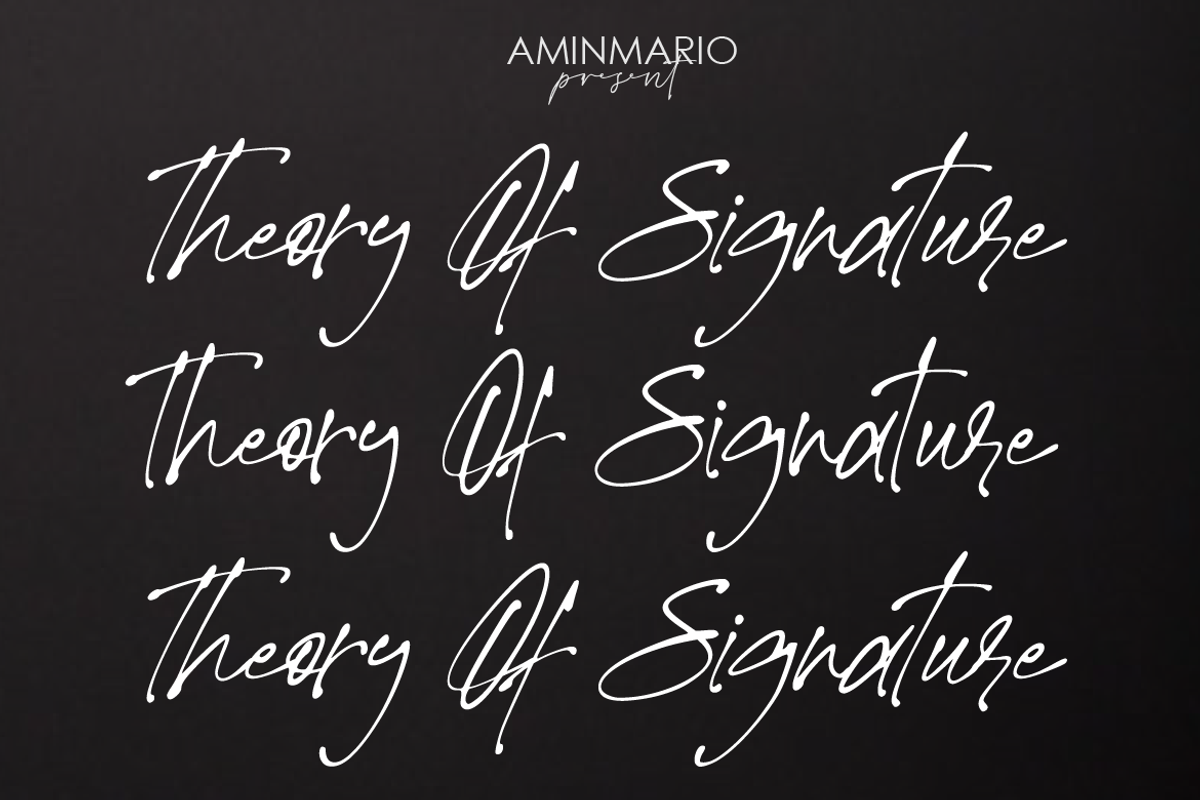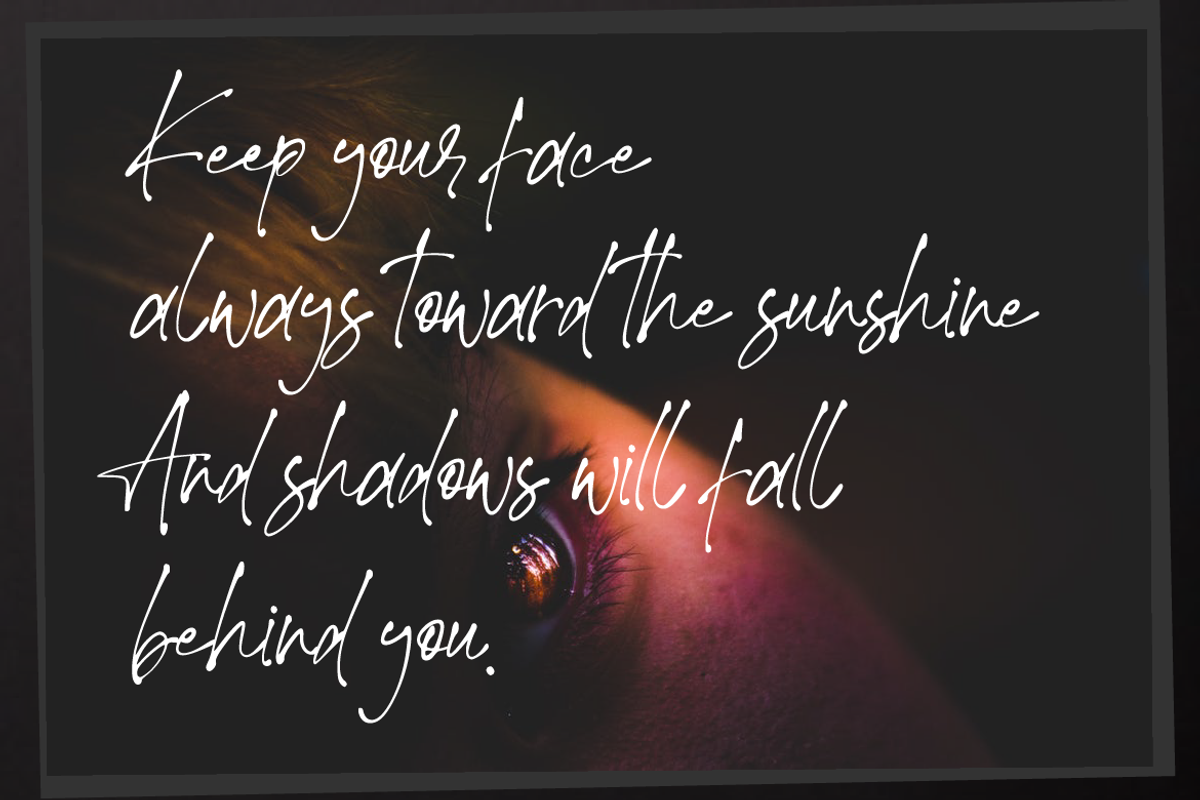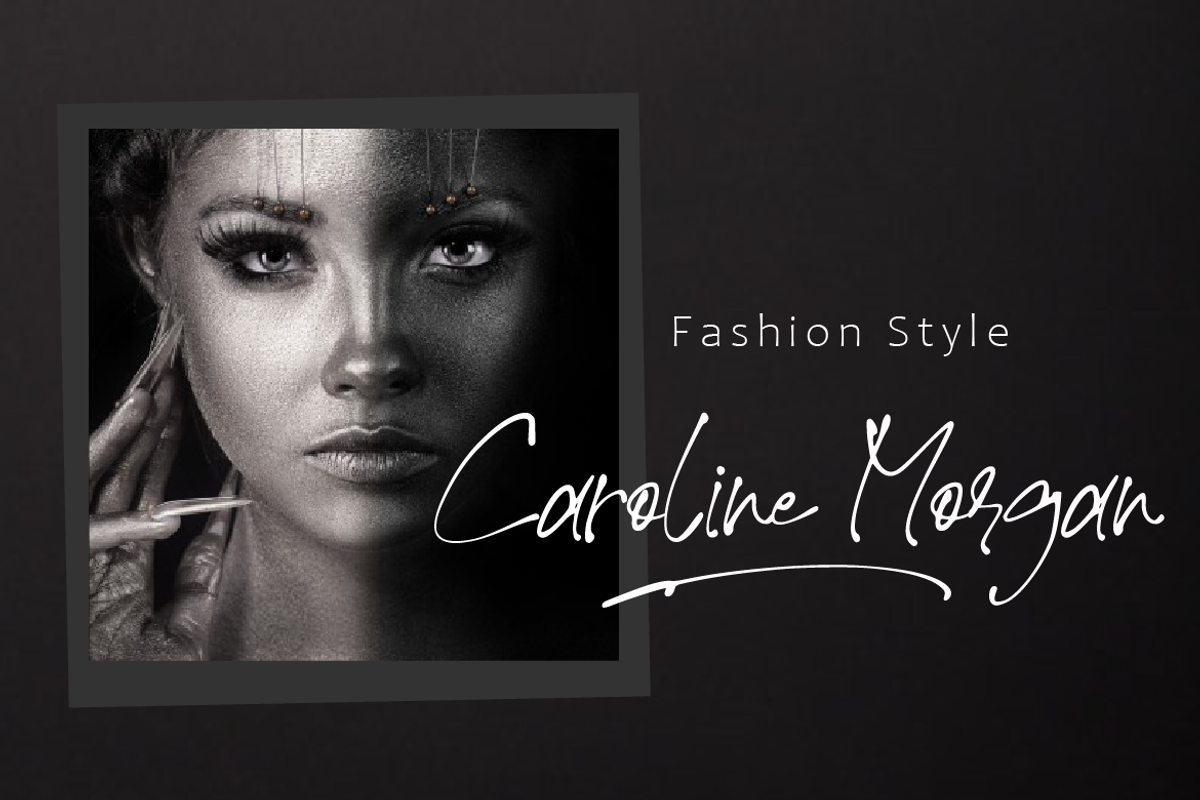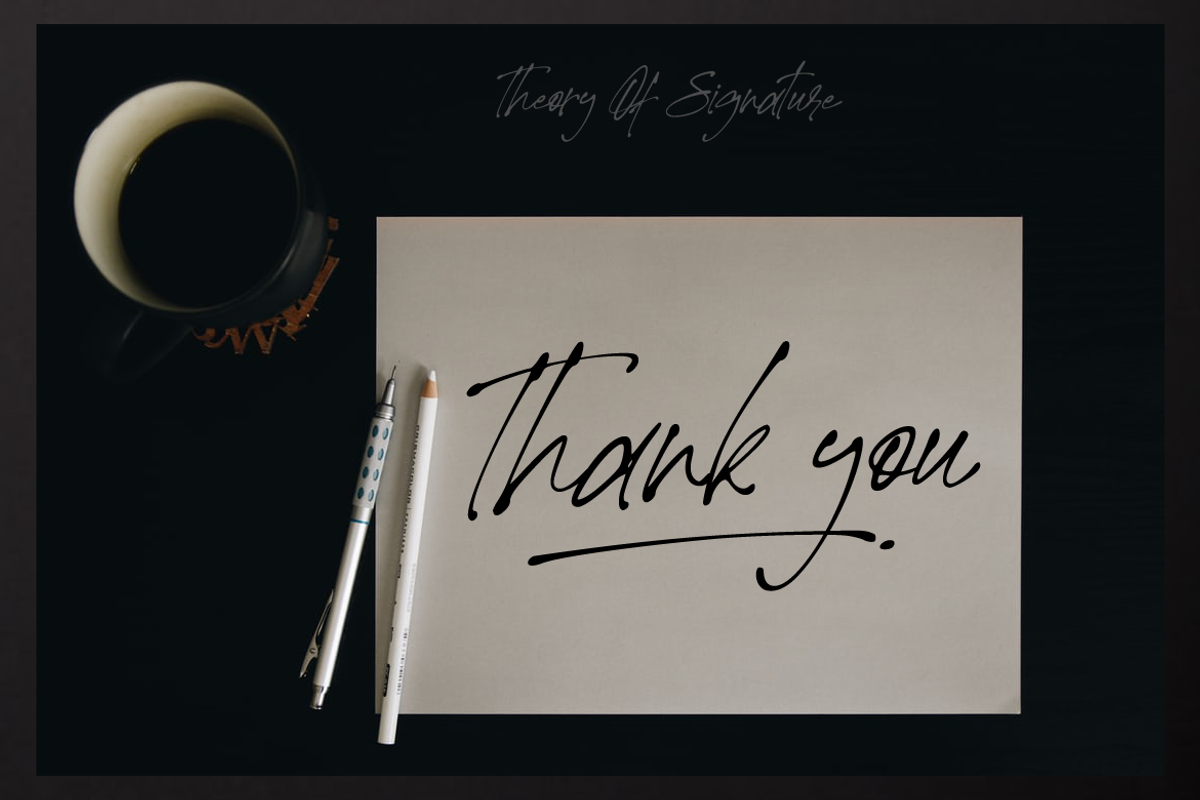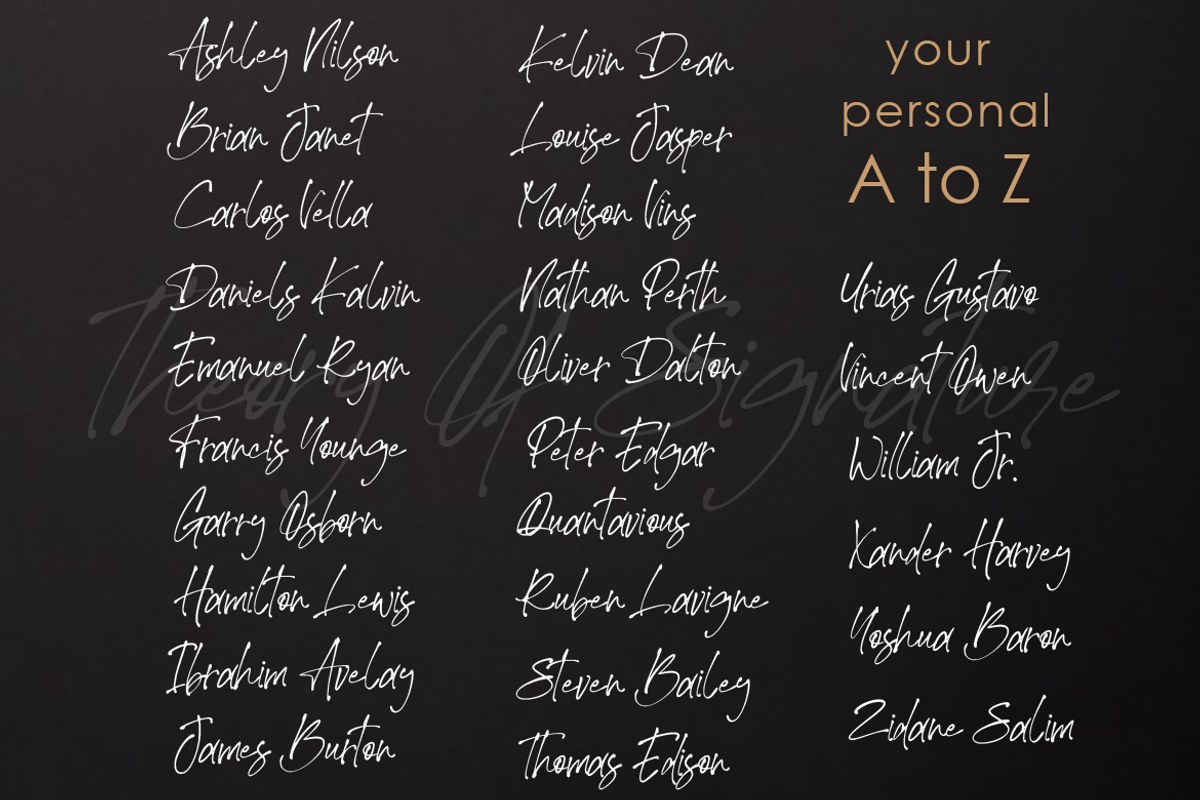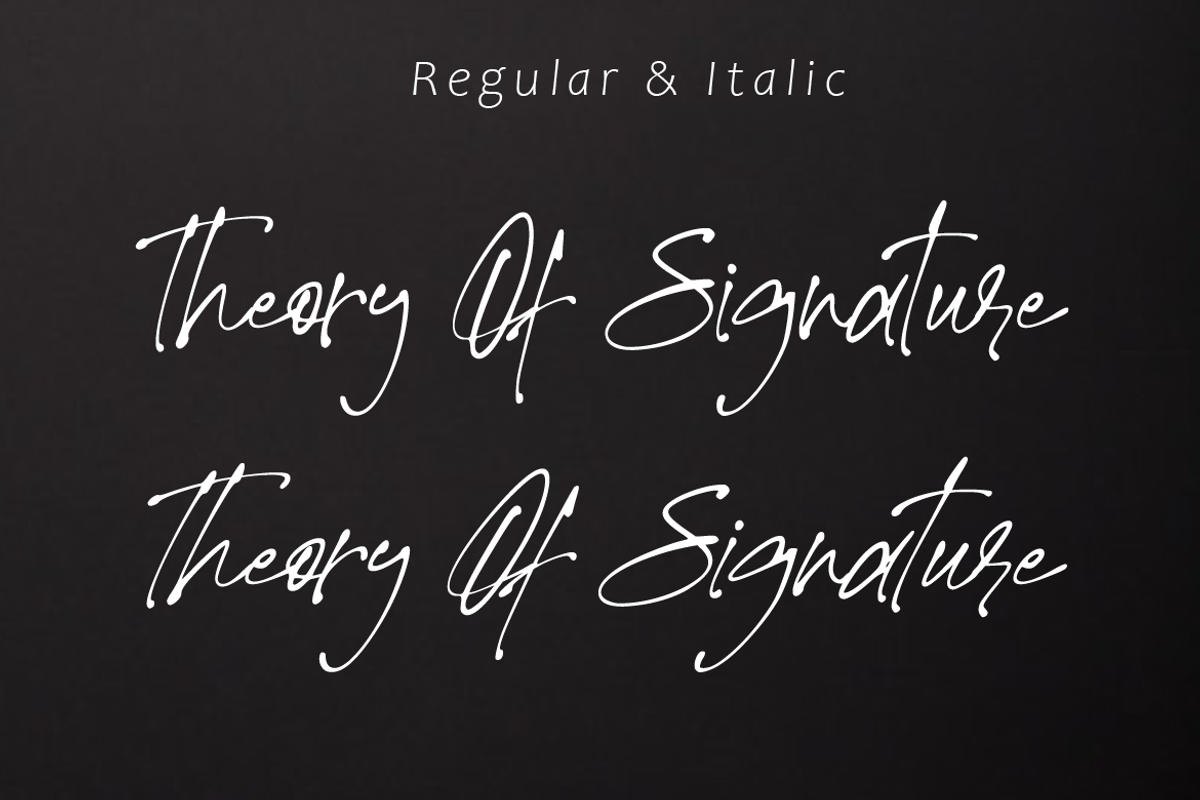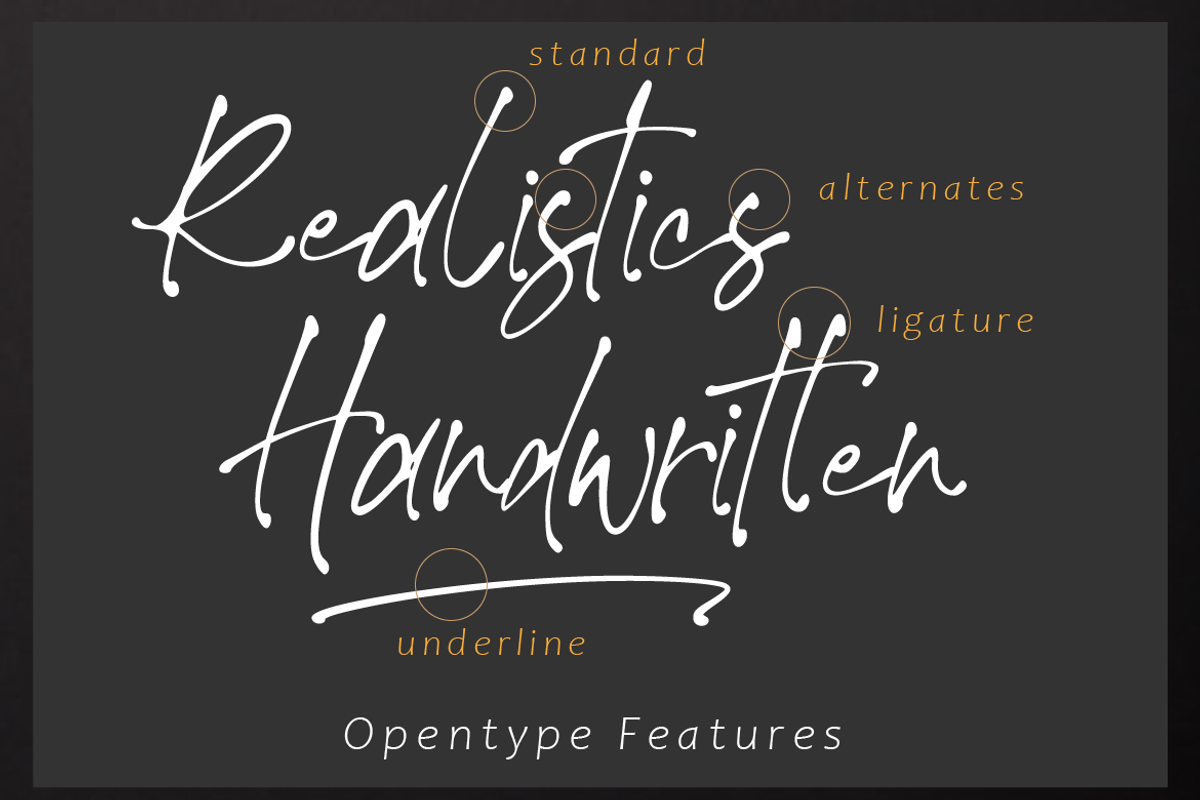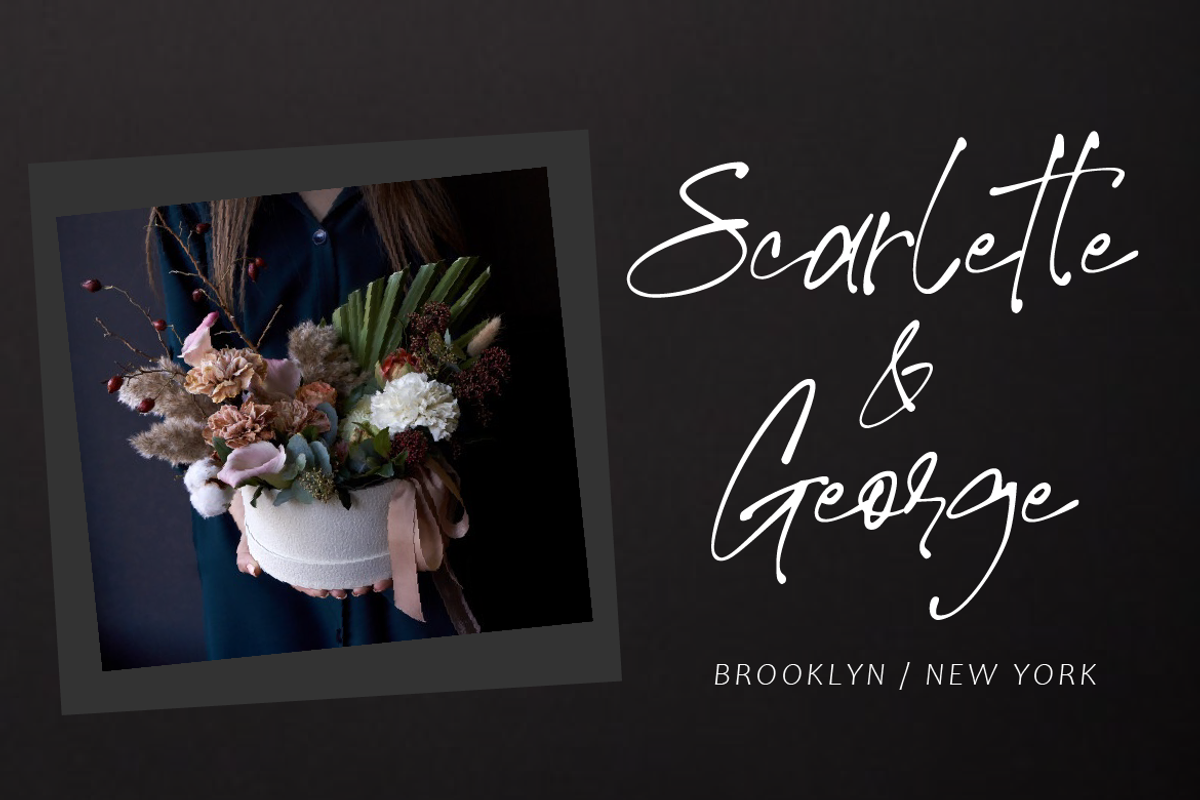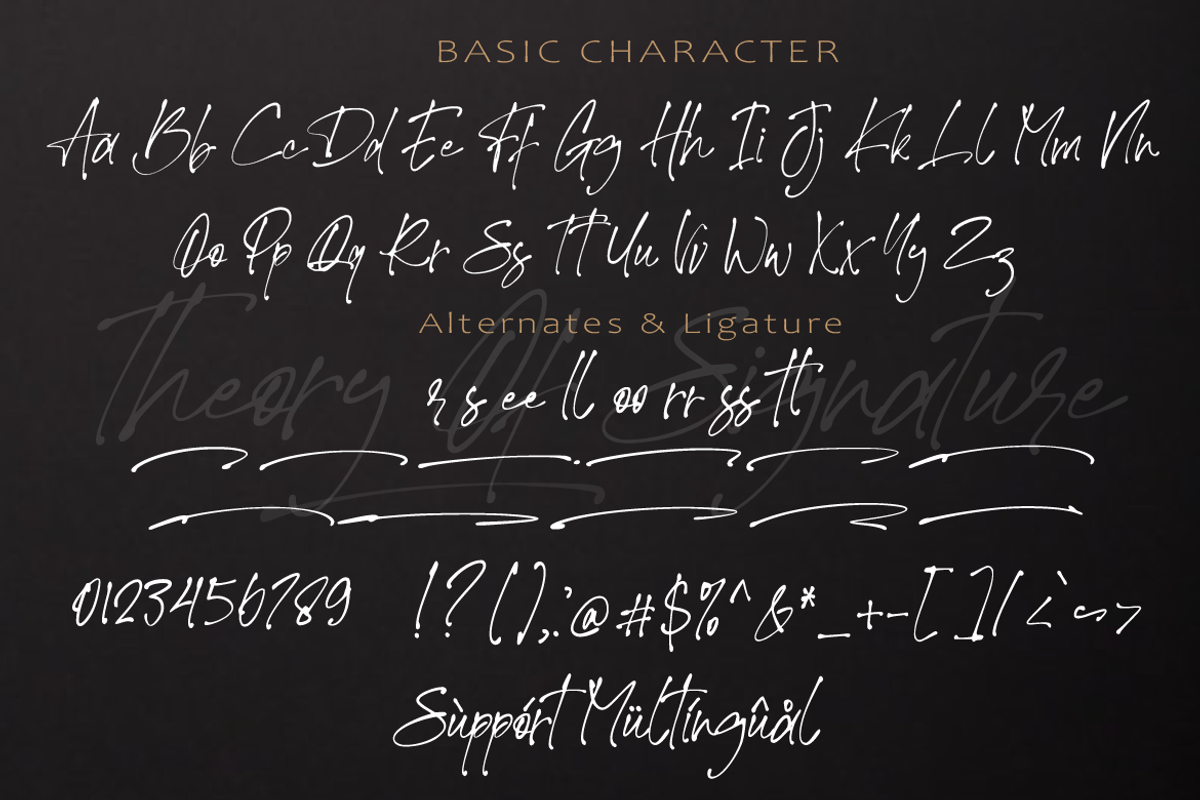
Theory Of Signature
Introducing
Theory of Signature Font
This font was created to look as close to a natural handwritten script as possible by including some alternates lowercase, ligature and underlines. Perfect for any awesome projects that need hand writing taste.
Comes with regular and italic. Built in Opentype features, this script comes to life as if you were writing it yourself. Also support multilingual.